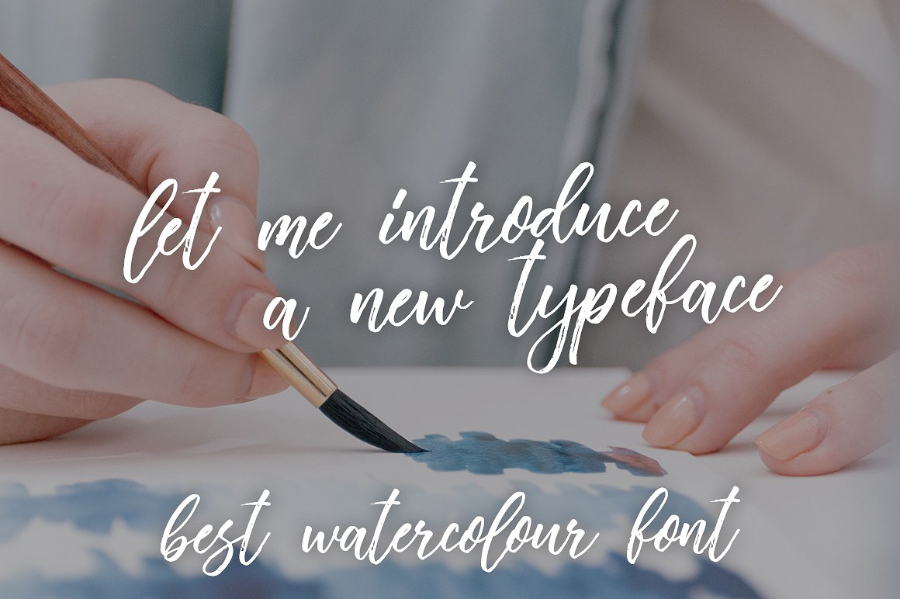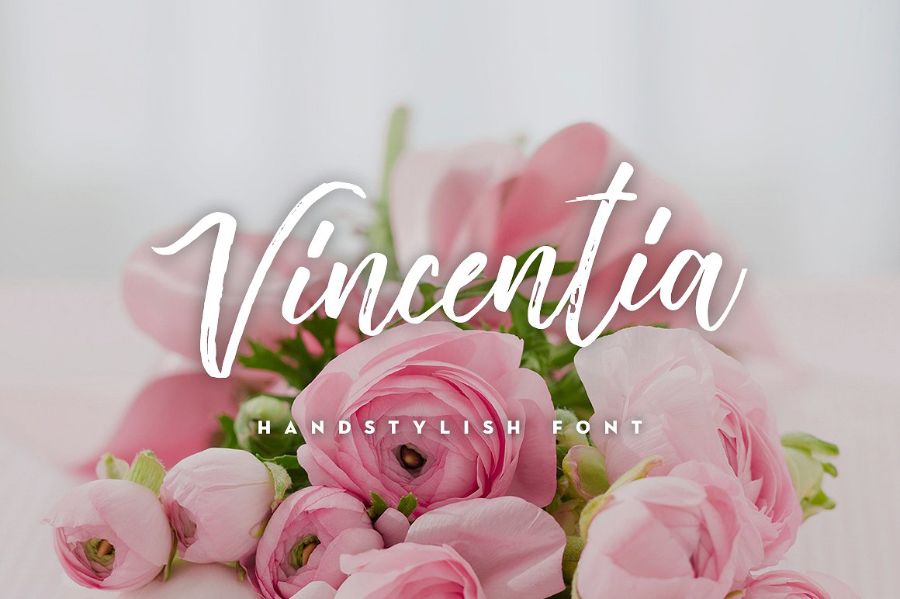
Vincentia Script Font
Vincentia Script Font is ready for easy download in zip file form. This typeface is also known as the lemonade font and it is used in logo designing. This font has been attractively common through the use of a pointer with a tinny brush on acrylic newspaper. Its appearances are outstanding in darkish paint shades.
It’s far the number one klasik font , and we discover it not possible to withstand because of its pinnacle-notch amazing styles. Sadly, you can maximum certainly use it in adobe photoshop and illustrator. Vincentia Script Font Free This font has an elegant appearance and touches with its threesome of outlines in respectively letter introduction. Use it on common to huge sizes for headings, works of artwork and plenty more.